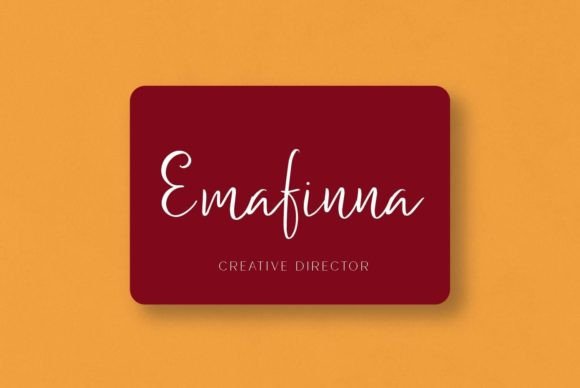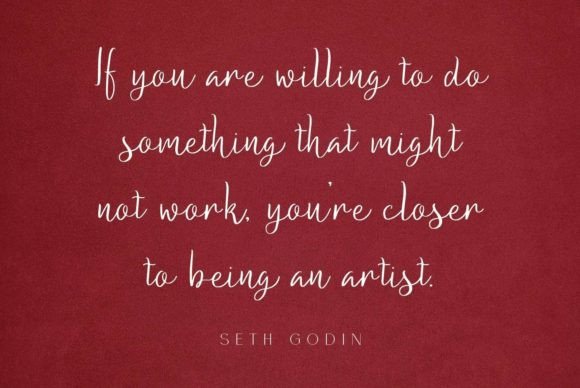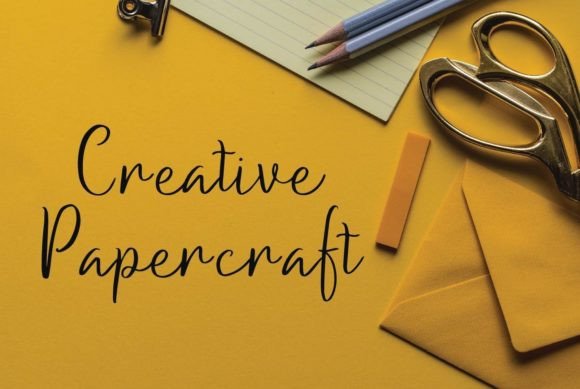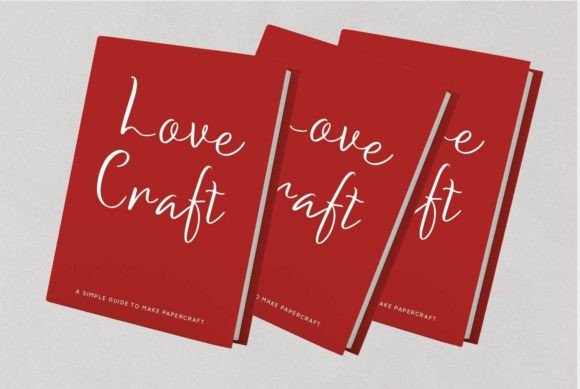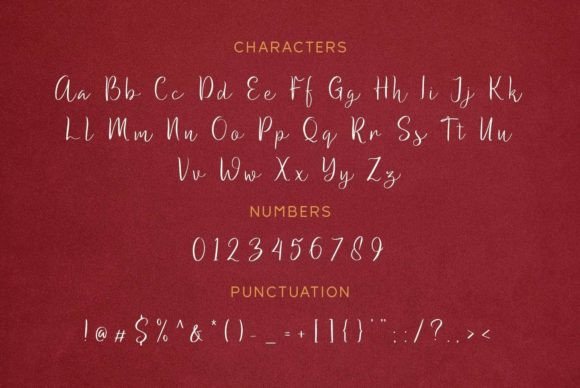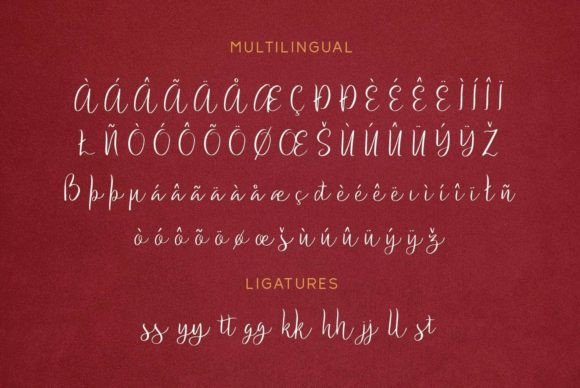
Introduction to Romy Style Font
Romy Style is a delicate and well-rounded handwritten font, perfect for crafty projects that need authentic typography.
Use it for wedding invitations, birthday cards, personal branding, elegant logos, and more, and your designs will stand out .
Key Features of Romy Style Font